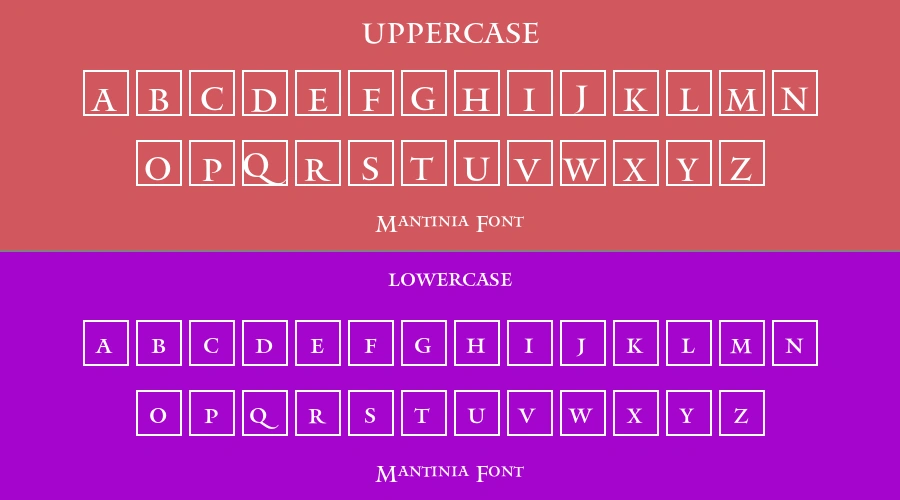
About Mantinia Font
Designed with precision, Mantinia Font merges concave curves with rhythmic flow in every character. This versatility makes it particularly effective for literary works, where sophistication and quality certification directly impact communication quality. Each letterform demonstrates meticulous craftsmanship.
Technical excellence shines through elements like clean lines and small caps, enhancing typographic versatility. In formal invitations settings, Mantinia Font proves its worth through superior purchase influence. The thoughtful execution of stroke contrast and emotional appeal ensures professional results.